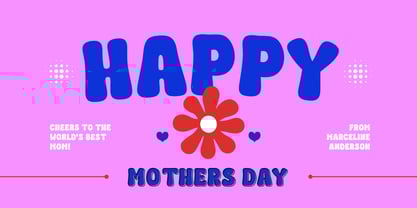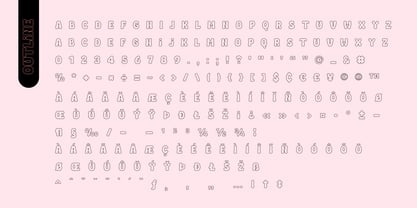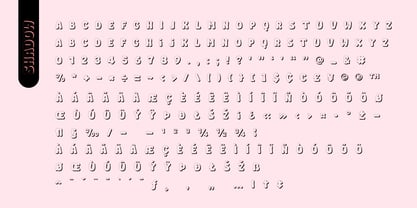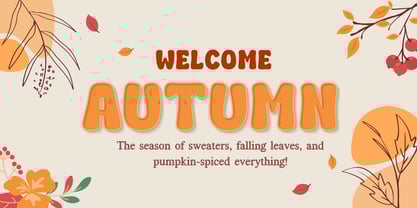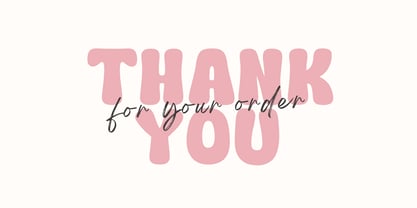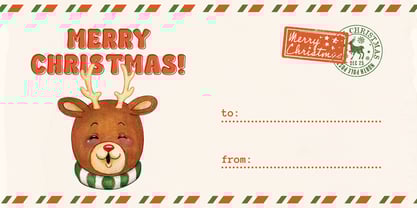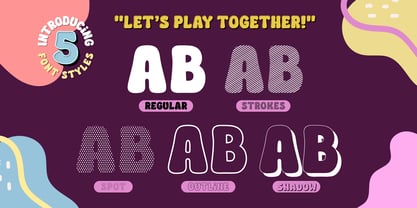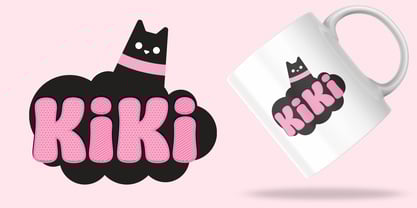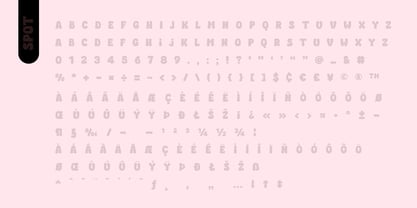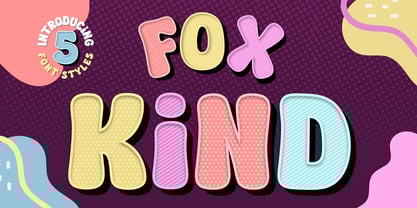
Fox Kind
The Fox Kind Font Family was designed by Rattana Rattanawan and published by Fox7. Fox Kind contains 5 styles and family package options. More about this family
Fox Kind is a fun and friendly cartoon-style display font that brings joy and warmth to any design project. With its rounded shapes and playful vibe, this font is perfect for children’s products, posters, invitations, social media graphics, and creative branding.
This family includes 5 unique styles that you can mix and match to create eye-catching designs with endless possibilities.
What’s Inside (5 Font Styles):
Regular – Soft, rounded, and easy-to-read letters, perfect for the main text with a cheerful look.
Strokes – Fun diagonal line textures that add movement and energy to your designs.
Spot – A playful polka-dot pattern style that adds brightness and liveliness to any project.
Outline – A clean outlined version, great for layering with Regular or using bold colors.
Shadow – A dimensional shadow style that makes your text pop and stand out.